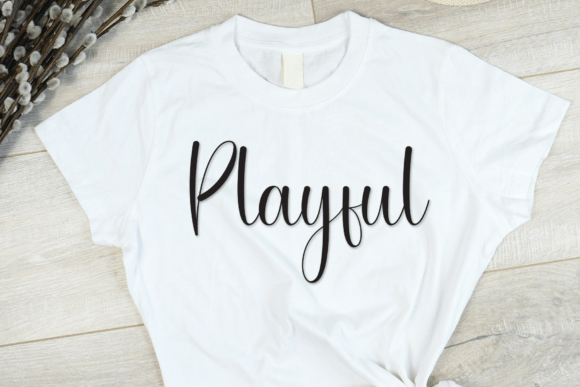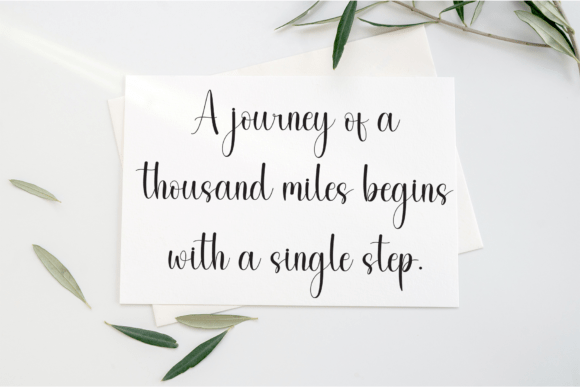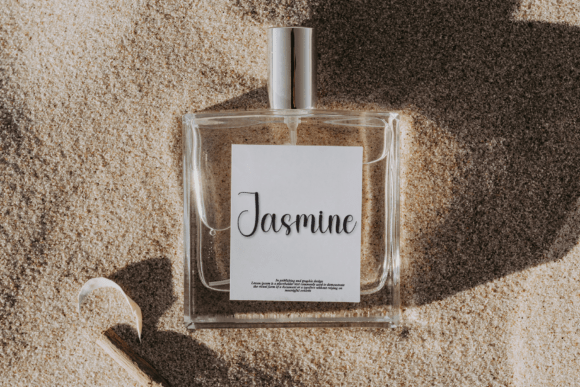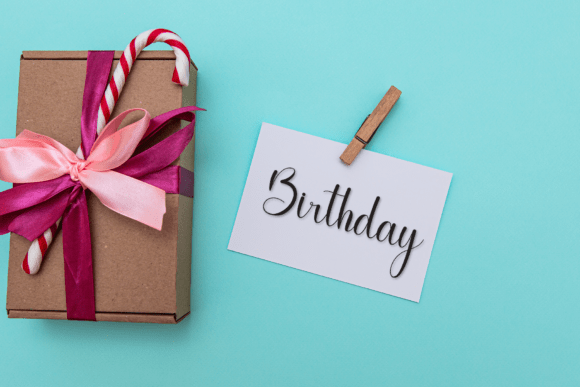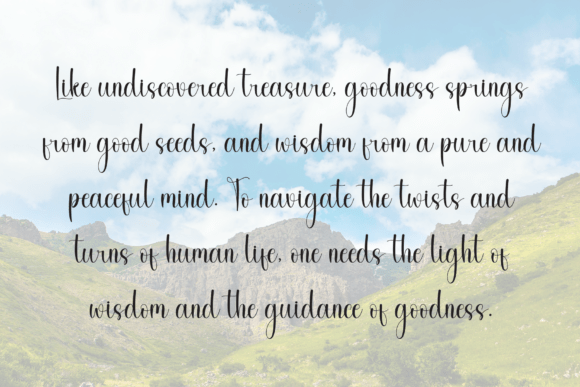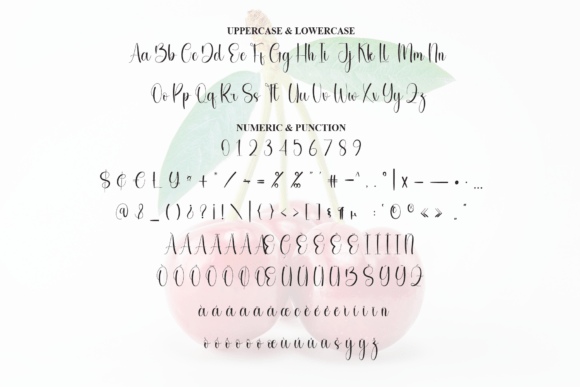
Introducing Cherry Font: Elevate Your Designs with a Touch of Elegance
Are you tired of using the same old fonts in your designs? Do you want to add a touch of elegance and sophistication to your projects? Look no further than Cherry Font, the latest addition to your creative arsenal. Our font is designed to provide you with an extraordinary experience, perfect for a wide range of applications, from wall displays to wedding invitations, social media posts, logos, advertisements, product packaging, and more.
What Sets Cherry Font Apart
Our Cherry Font is not just any ordinary font. It’s a carefully crafted, special creative product designed to meet the needs of modern designers and crafters. With its unique and stylish letters, you’ll be able to add a personal touch to your projects, making them stand out from the crowd. Whether you’re working on a professional project or a personal craft, Cherry Font is the perfect choice.
Endless Possibilities with Cherry Font
The versatility of Cherry Font is one of its most significant advantages. You can use it in a variety of projects, including:
- Wall displays and signage
- Social media posts and logos
- Advertisements and marketing materials
- Product packaging and design
- Labels and stickers
- Photography and watermarks
- Stationery and journals
Why Choose Cherry Font?
With so many fonts available, why choose Cherry Font? Here are just a few reasons:
- Unique and stylish letters that will elevate your designs
- Wide range of applications and compatibility
Tips for Using Cherry Font
To get the most out of Cherry Font, here are a few tips:
- Experiment with different sizes and colors to find the perfect combination for your project
- Use Cherry Font in combination with other fonts for a unique and eye-catching effect
- Don’t be afraid to get creative and try new things – Cherry Font is designed to inspire
In conclusion, Cherry Font is a game-changer for designers and crafters looking to add a touch of elegance and sophistication to their projects. With its unique and stylish letters, wide range of applications, and ease of use, it’s the perfect addition to your creative arsenal. So why wait? Get Cherry Font today and experience the difference for yourself.